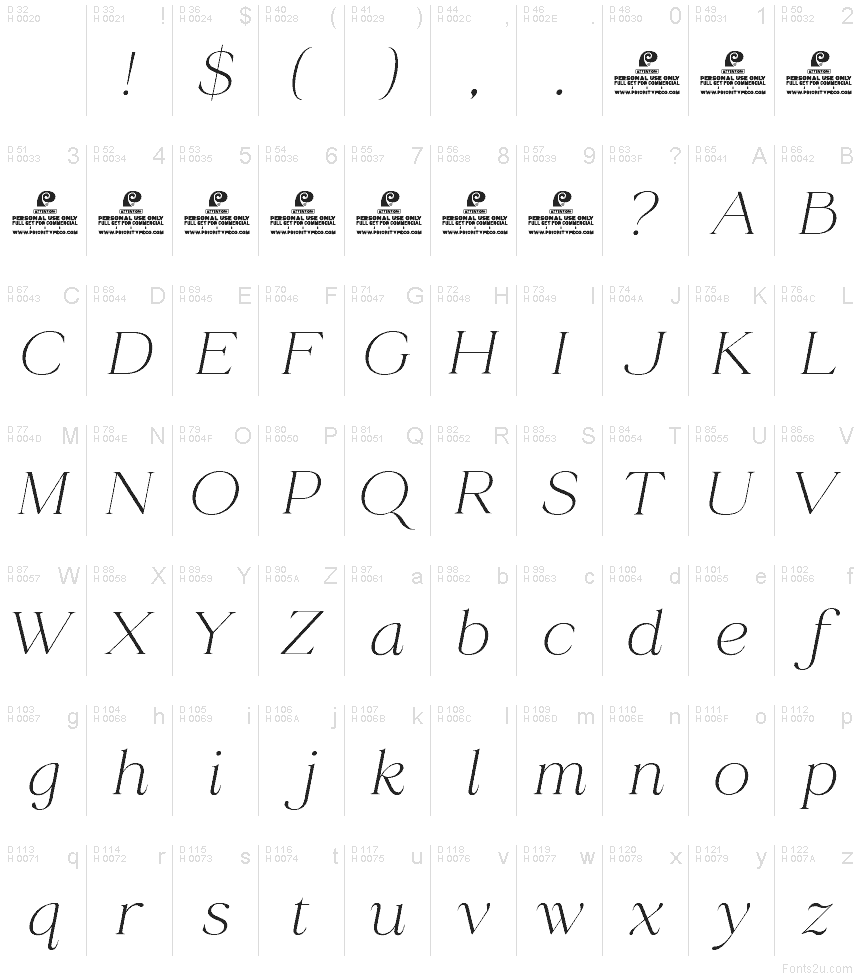
Radiant Charisma DEMO Light Ita
Radiant Charisma Light Ita font by Prioritype Co brings elegance and sophistication to your designs. This free serif font features refined curves and a flowing form for a timeless appeal. Composed with classic, captivating script elements, the light typeface fits each word in style with an overall eye-pleasing look.